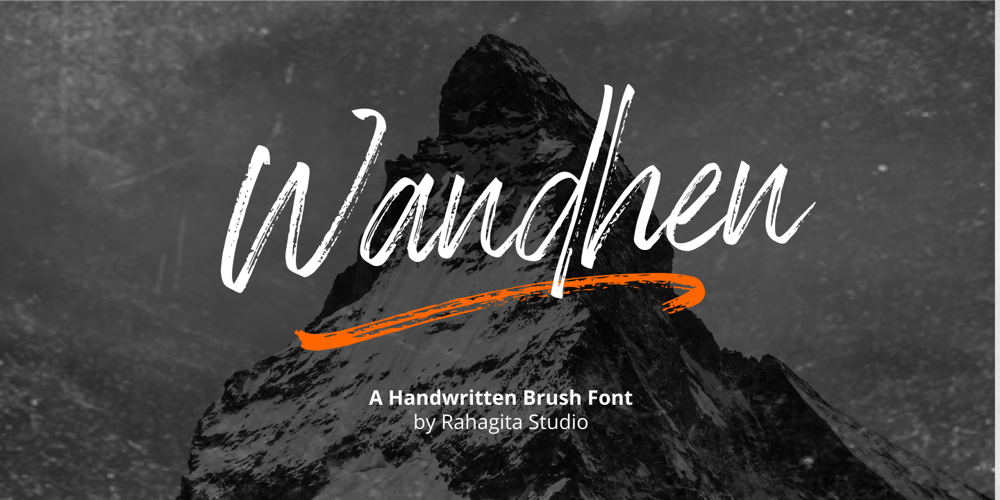
Wandhen Font Family was designed by Setiadi Rahagita and published by RahagitaType. Wandhen contains 1 styles and family package options. Wandhen is handwritten brush font suitable for a lot of projects. such as flyers, crafting, logo, banner, packaging, design product, etc.